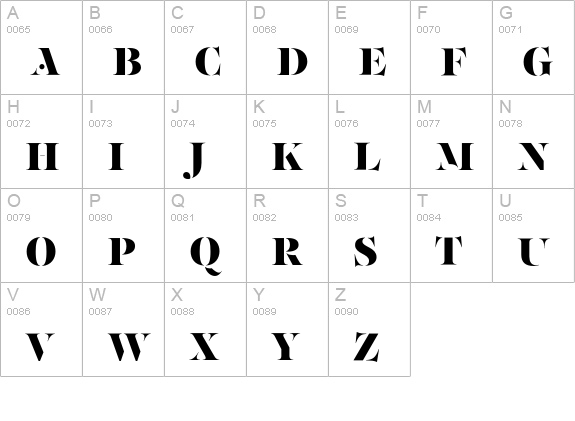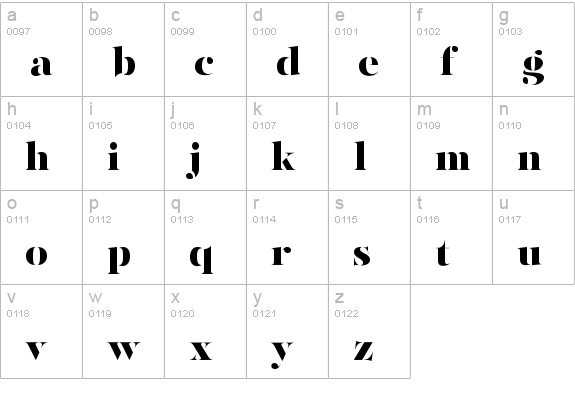
PFRegalStencilPro-Black is a maximum-weight, dramatic variant in the PFRegalStencilPro typeface family \xE2\x80\x94 well suited to maximum-impact headlines, posters, and packaging.
PFRegalStencilPro-Black is a bold and striking font that exudes elegance and sophistication. With its stencil design, this typeface adds a modern and edgy touch to any project. The sharp lines and clean edges of PFRegalStencilPro-Black make it perfect for creating eye-catching headlines, logos, and posters. The best part is that PFRegalStencilPro-Black is available for free download at FontsMarket.com. This means you can easily access this high-quality font without any cost. Whether you're a designer working on a professional project or simply looking to enhance your personal creative endeavors, PFRegalStencilPro-Black is a versatile font that is sure to make a statement. Download it today and elevate your designs with this sleek and stylish typeface.